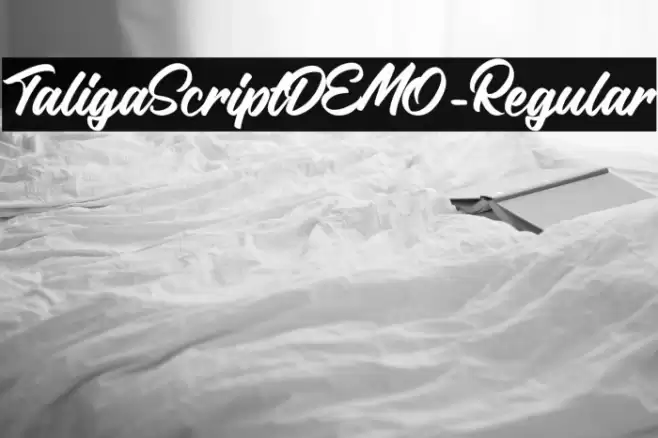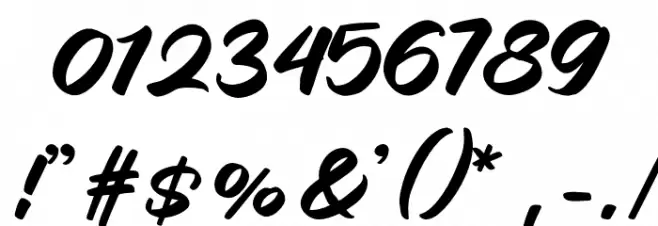
TaligaScriptDEMO-Regular Font
TaligaScriptDEMO-Regular Description
This font features a bold, flowing script style that exudes elegance and sophistication. The characters are connected in a smooth, cursive manner, giving it a handwritten appearance. The uppercase letters are slightly more elaborate, with sweeping curves and flourishes, while the lowercase letters maintain a consistent flow. The numerals are clear and legible, matching the overall style of the alphabet. Special characters are integrated seamlessly, maintaining the script's fluidity. This font is perfect for projects that require a touch of class and personality.
A bold, elegant script font with a flowing, handwritten style from Regular fonts.
- Proposed Projects: Ideal for wedding invitations, branding, logo design, and elegant stationery.
- Overall Style: Elegant
- Use Case: Logos, Invitations, Branding